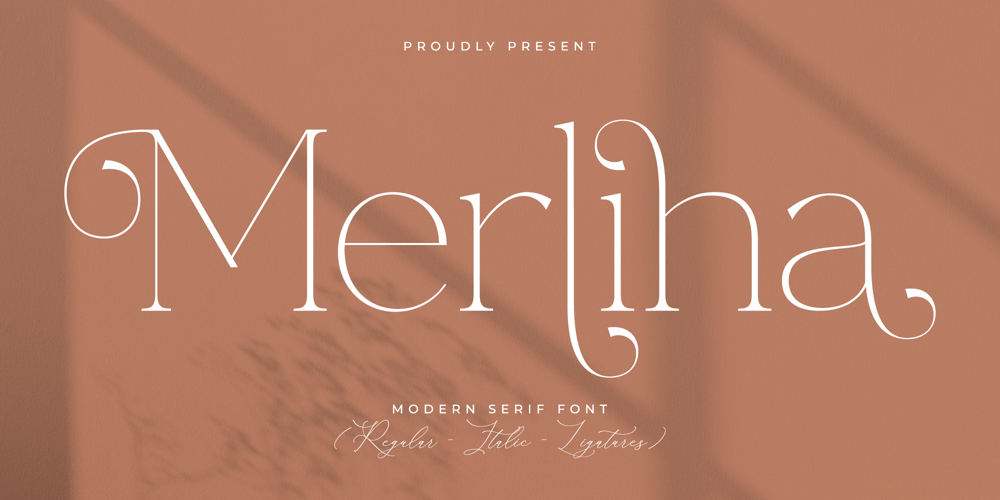
Merliha Font Family was designed by Heru Utama Putra and published by Letterena Studios. Merliha contains 2 styles and family package options. Merliha is a modern, stylish, and sophisticated serif font that captivates with its refined elegance. Its sleek lines and subtle curves create a harmonious balance, making it a perfect choice for upscale branding, editorial design, and luxury products. With a touch of classic flair, Merliha effortlessly elevates your projects, leaving a lasting impression of grace and class.